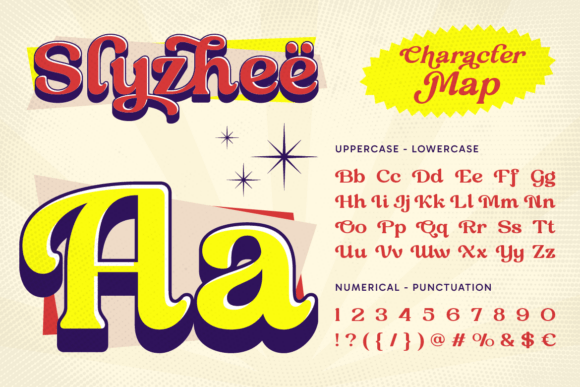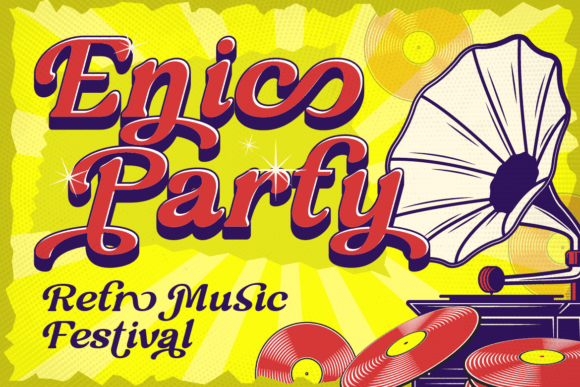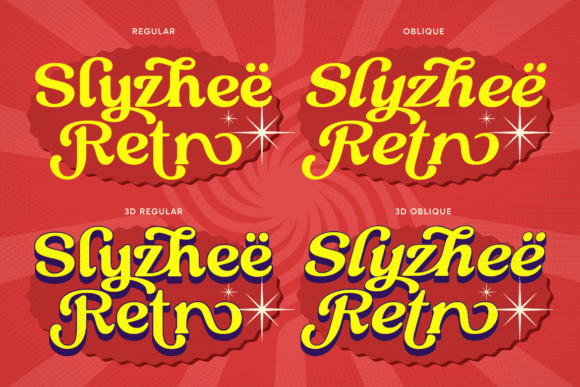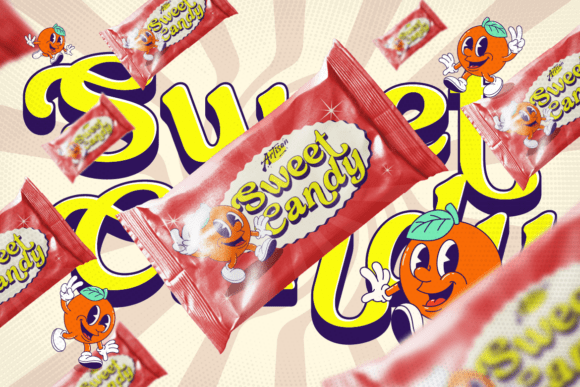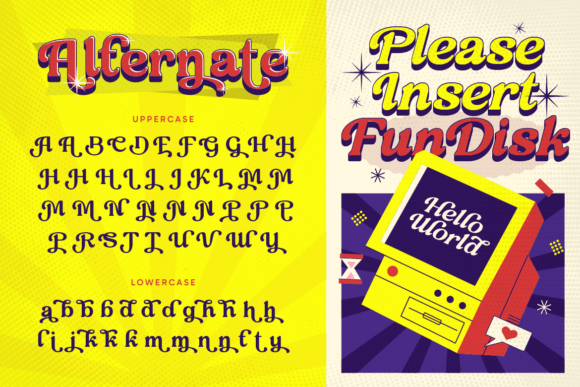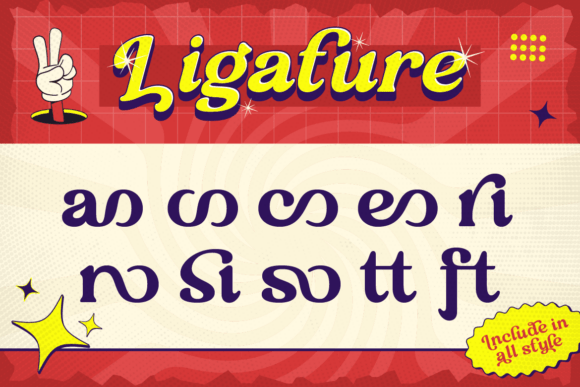
Introduction to Slyzhee Font
Do you remember the rush of excitement when you stumbled upon the perfect font for your creative project? For many designers, that moment is a game-changer. It’s the difference between a good design and a great one. And today, we’re going to talk about a font that’s sure to bring that excitement back – the Slyzhee Font.
This bold retro typeface is a true gem, inspired by the classic 70’s lettering style. With its playful curves, thick strokes, and eye-catching shapes, Slyzhee Font instantly brings a vintage and groovy vibe to any design. Whether you’re working on a high-quality poster, logo, or packaging design, this font is a must-have in your toolkit.
As a valuable design resource, Slyzhee Font comes with 4 styles, giving you the flexibility to create unique looks, from flat retro designs to bold 3D effects. And the best part? It’s available for a free download, making it a transparent background for your creative vision to shine through.
Key Features of Slyzhee Font
- High-quality vector design suitable for various creative projects, including graphic design, digital art, and web design.
- Transparent background, allowing for easy integration with any design or image.
- Customizable size and resolution, allowing designers to scale the font to suit their specific needs.
- Unique, hand-drawn style that adds a touch of personality to any design project.
- Perfect for designers looking for a high-quality, free font that can add a creative touch to their work.
Honest Review: Slyzhee Font
I recently stumbled upon the Slyzhee Font, and I must say it’s been a great addition to my design resource library. This high-quality font is perfect for creative projects that require a touch of whimsy and playfulness.
- ✨ The font’s unique, cursive design makes it perfect for titles, headings, and other prominent text elements.
- ✨ The font supports a transparent background, making it easy to overlay on images or other design elements.
- ⚠️ The font’s character set is somewhat limited, which may make it less suitable for longer blocks of text.
- ⚠️ Some of the font’s styles can be a bit difficult to read, especially at smaller sizes.
Overall, I’m really impressed with the Slyzhee Font. It’s a great resource for designers looking to add some creativity to their projects. While it may have some limitations, its unique design and free download make it a valuable addition to any design library.